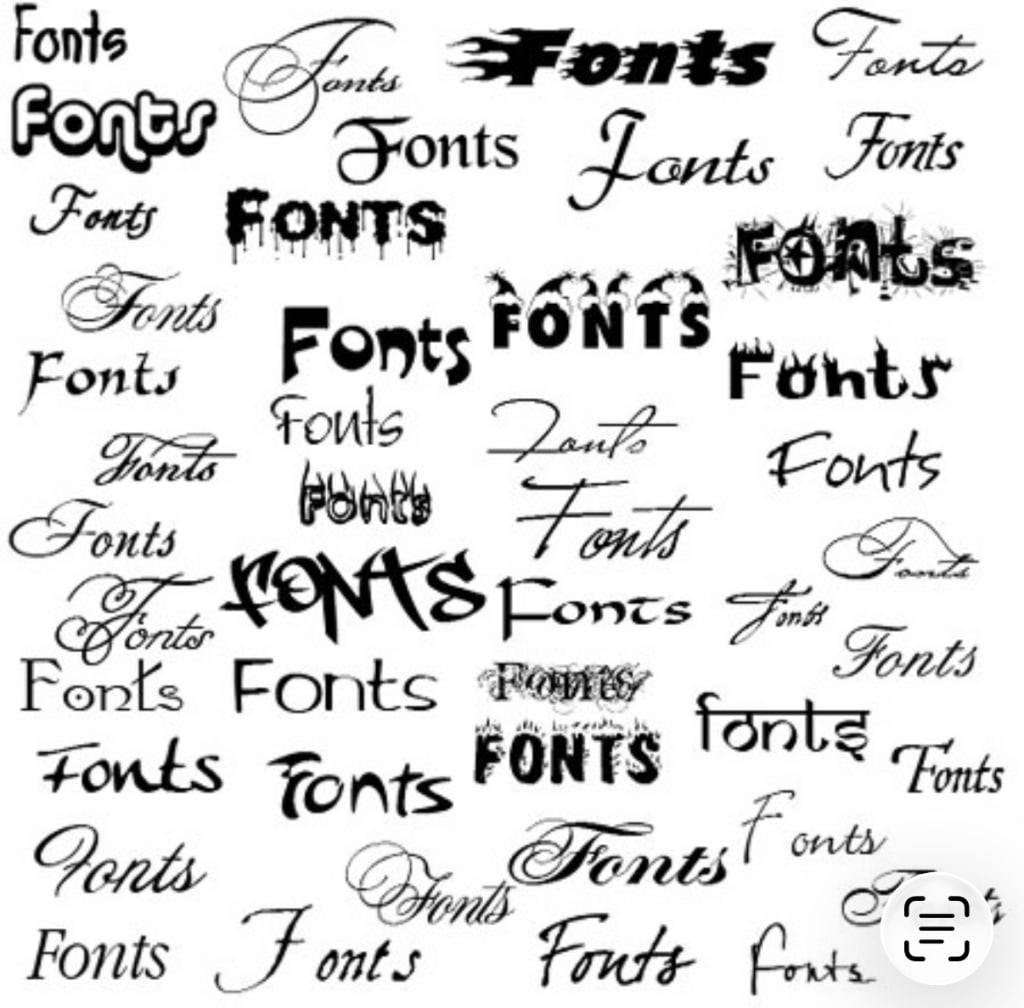
What’s up with this random capitalization of common nouns? It grieves me, about as much as bold italicized font (why? It makes no sense). Why would an entire story need to be in either bold or italicized font? Again, both makes no sense whatsoever. Fonts have meaning.
Bold font is for emphasis. Yes, sweetie, I understand that you want to emphasize every precious word that flows from you, but can you justify it? Is there a difference between emphasizing everything and emphasizing nothing? Not really. So why assault your readers’ eyes?
If it’s already in bold font, why italicize? Correct me if I’m wrong, but italics denote mild (or tonal) emphasis, and bold font denotes strong emphasis. Using both says, “I don’t understand the language of fonts,” or “Everything I write should be emphasized twice.” Frankly, I’m not a fan of either.
Why not let the work speak for itself? Does everything have to include self-gratifying performance in this post-modern world? Or is everyone woefully ignorant about font meanings? Does anyone care at all about the reader?